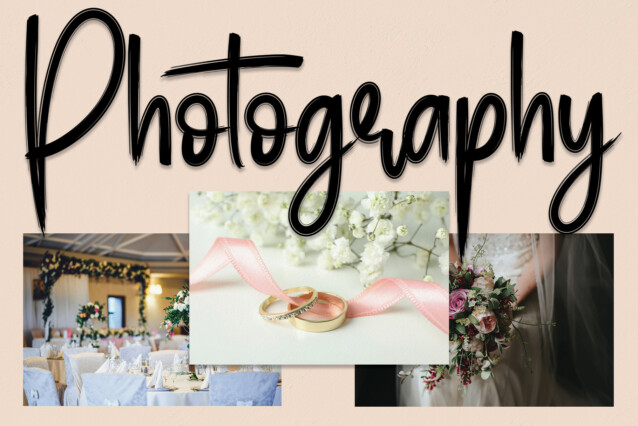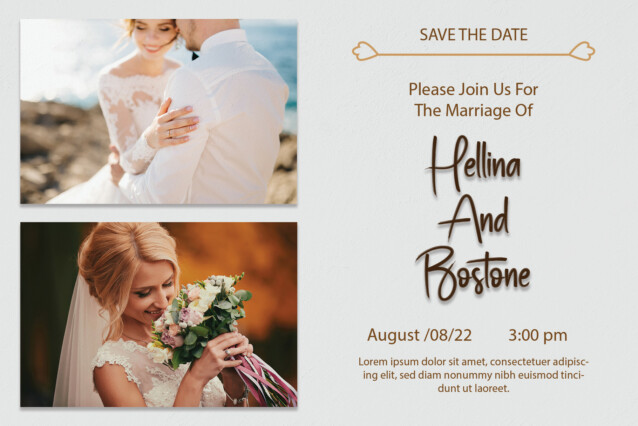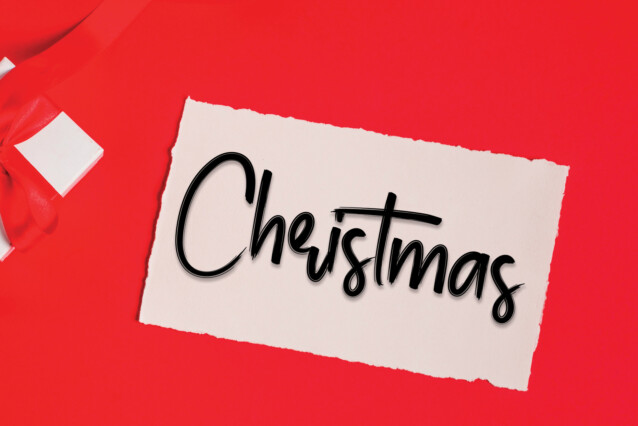
The Storybook Script Font
The Storybook Script Font is a beautiful handwritten font. Its latest style letters are perfect for wall displays, wedding invitations, social media post logos, advertisements, product packaging, product designs, labels, photography, watermarks, invitations, stationery, and any project that requires handwritten taste.